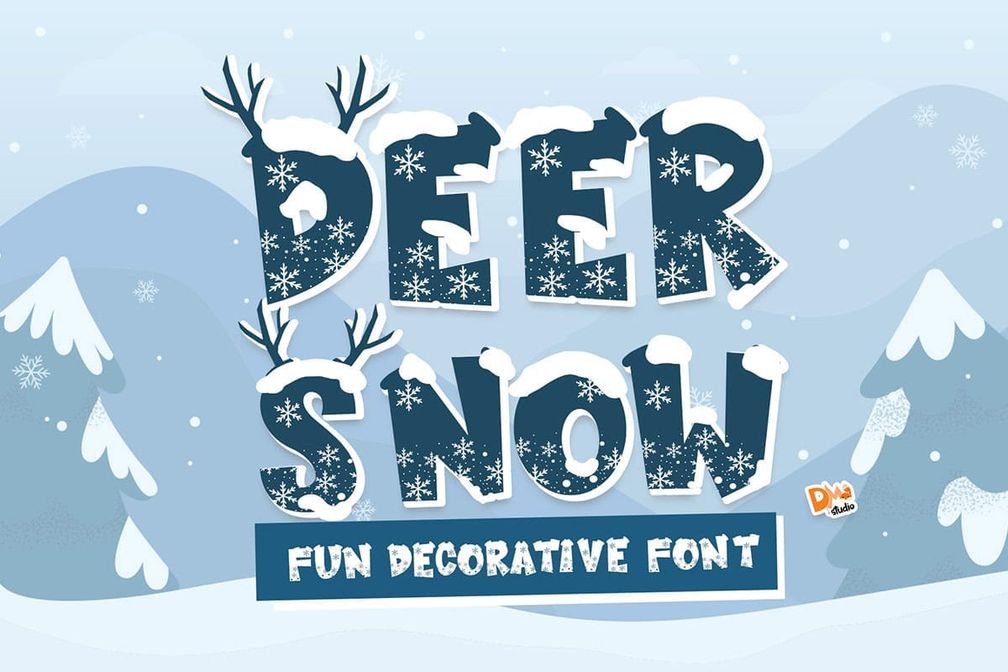
Deer Snow
It’s a friendly handwritten sans with Horn Deer , comes in all caps and snow effect overlay.
Fun for your winter designs or even for any designs!
– All in caps
– Numerics
– Symbols
– Multilingual Support